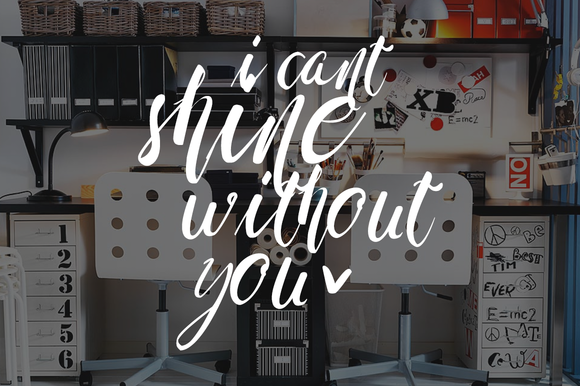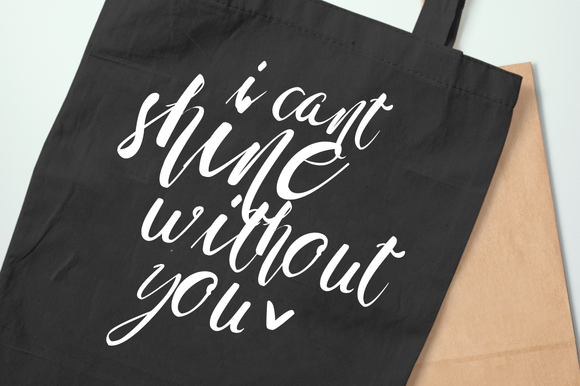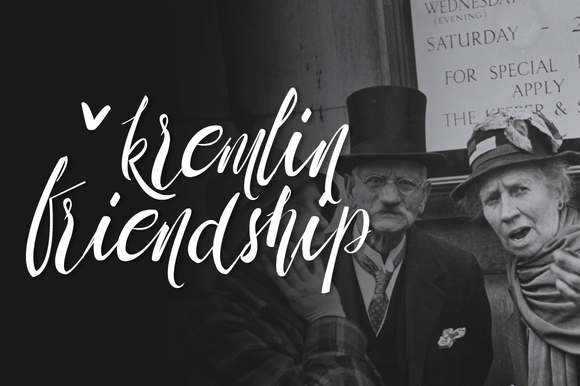
Introduction to Kremlin Font
Have you ever found yourself staring at a blank page, struggling to bring your creative vision to life? The blank canvas can be intimidating, but with the right tools, it’s a blank check waiting to be filled. For designers, discovering a new font can be a game-changer, giving them the freedom to express themselves in a way that’s truly unique.
Enter the Kremlin Font, a stunning freestyle handwriting font that’s about to become your new design BFF. Created by Ease Type, this modern script font is the perfect addition to any project, allowing you to add a personal touch that sets your work apart.
Whether you’re working on a high-quality design project or just need a reliable design resource, the Kremlin Font is a valuable asset that’s sure to elevate your work. With its fully transparent background and free download option, you can dive in and start creating without any hassle.
Kremlin Font
- Unique Cyrillic and Latin script support, ideal for creative projects
- High-quality design with transparent background, perfect for background or overlay use
- Excellent choice for design resources, including logos, graphics, and UI elements
- Perfect for designers and artists working on creative projects, with a modern and elegant feel
Honest Review: Kremlin Font
I recently stumbled upon the Kremlin Font, and I must say it’s an interesting addition to any design project. The font itself is quite versatile, making it a great resource for designers.
- High-quality design: The Kremlin Font boasts crisp, clean lines and a sleek aesthetic that can elevate any creative project.
- Transparent background: This feature allows for seamless integration into various design elements, giving designers more flexibility.
However, there are some limitations:
- ⚠️ Limited font styles: While the Kremlin Font is well-designed, it’s lacking in variety. Designers may find themselves wanting more options to choose from.
- ⚠️ Not suitable for all projects: Due to its modern aesthetic, the Kremlin Font may not be the best fit for more traditional or classic design projects.
Overall, the Kremlin Font is a solid addition to any design resource library. While it may have its limitations, its high-quality design and free download make it a great choice for designers working on creative projects.
Kremlin Font
Tips for Getting the Most Out of Kremlin Font
Use the Kremlin Font with a transparent background to create a seamless design. Experiment with different font sizes and colors to enhance the visual impact of your project. For high-quality results, use the font in conjunction with other design resources.
The Kremlin Font is ideal for creative projects that require a unique and stylish font. Use it for:
- Brochure design
- Infographic design
Whether you’re working on a personal project or a professional assignment, Kremlin Font is sure to impress. Its sleek and sophisticated design is sure to add a touch of sophistication to any creative project. So why wait? Download Kremlin Font today and unlock your full design potential. With its high quality and versatility, it’s the perfect addition to any design arsenal. Get creative and take your projects to the next level with Kremlin Font!